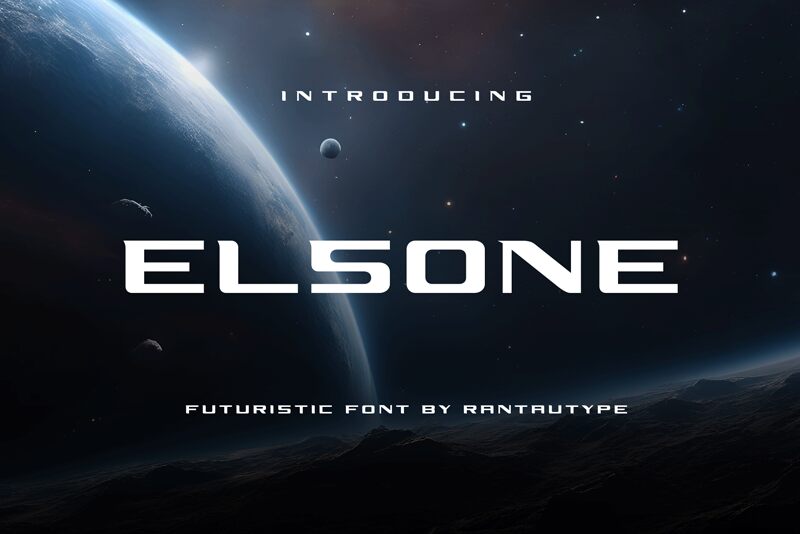
Elsone font, crafted by RantautypeStudio, is a sleek and modern techno typeface with a futuristic edge. This free font balances contemporary design with minimalist features for effortless sophistication. Inspired by cutting-edge technology, it embraces a straightforward form that lets creativity unfold and leaves the imagination to exploit its user. It comes with seven useful weights perfect for text, in addition to special icons drawn in a consistent manner.
Use it to create posters, music albums for DJs and artists, apparel designs for funky new stores, branding designs, online platforms, websites, digital car dashboards, innovative in-home technologies, and banners. Elsone also takes your branding, UX, and UI designs to a new level by introducing updated and absolutely stellar design.